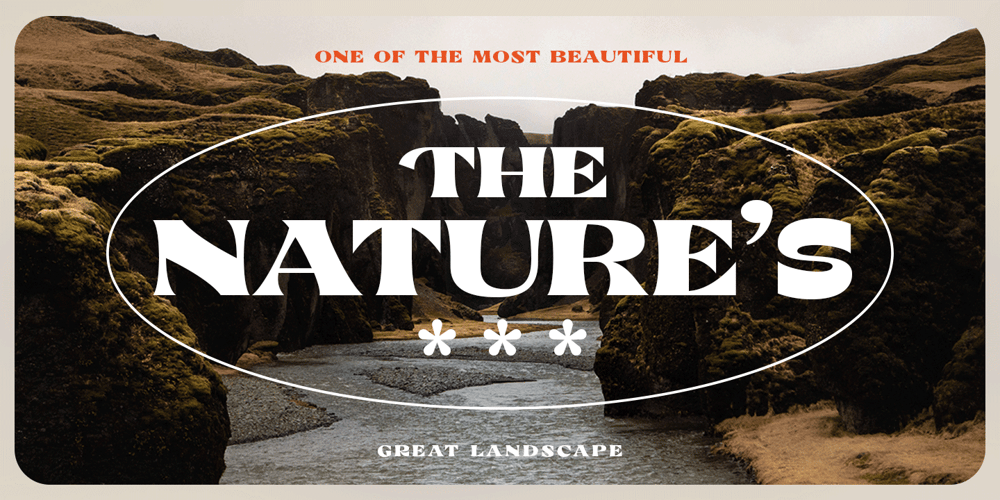
Noricks Font Family was designed by Ahmad Ramzi Fahruddin and published by Arterfak Project. Noricks contains 1 styles and family package options. Introducing Noricks, the handy bold serif typeface. Designed with satisfying large serif, and inspired by the newspaper headline and classy fashion logos. In this font, you can find strong and mild looks at the same time that makes Noricks can be used for many purposes.Work perfectly for logo, headline, title, or any design which needs emphasis from typography. Noricks is more complete with ligatures and a lot of special characters that you can apply and get the classy looks.What you’ll get : Uppercase Lowercase Numbers & symbols Punctuation Stylistic alternates Stylistic set Ligatures Accented characters Enjoy!